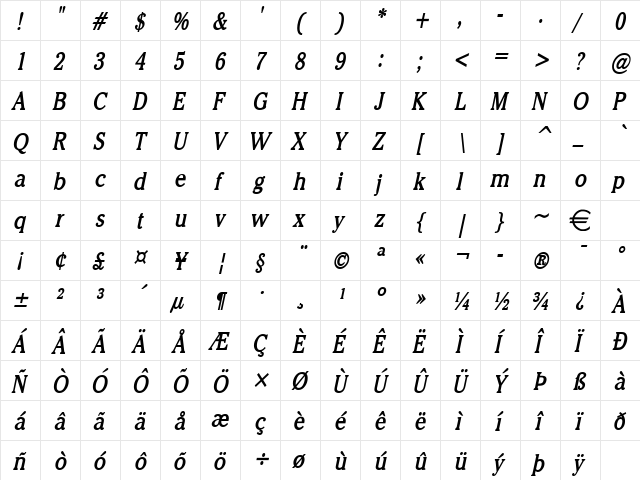
ChelseyCondensed BoldItalic Font Preview
Design Context for ChelseyCondensed Typeface
ChelseyCondensed takes a measured approach to typography — its balanced proportions and neutral character make it a reliable workhorse for both digital and print work. The dynamic lean of this cut emphasises speed and emphasis in any layout. The heavy weight commands attention and anchors typographic hierarchies. The condensed width makes it efficient for tight spaces without sacrificing legibility.
Pro Tip: Try ChelseyCondensed for annotation and caption copy alongside an upright companion — the contrast in angle creates a dynamic but ordered typographic system.